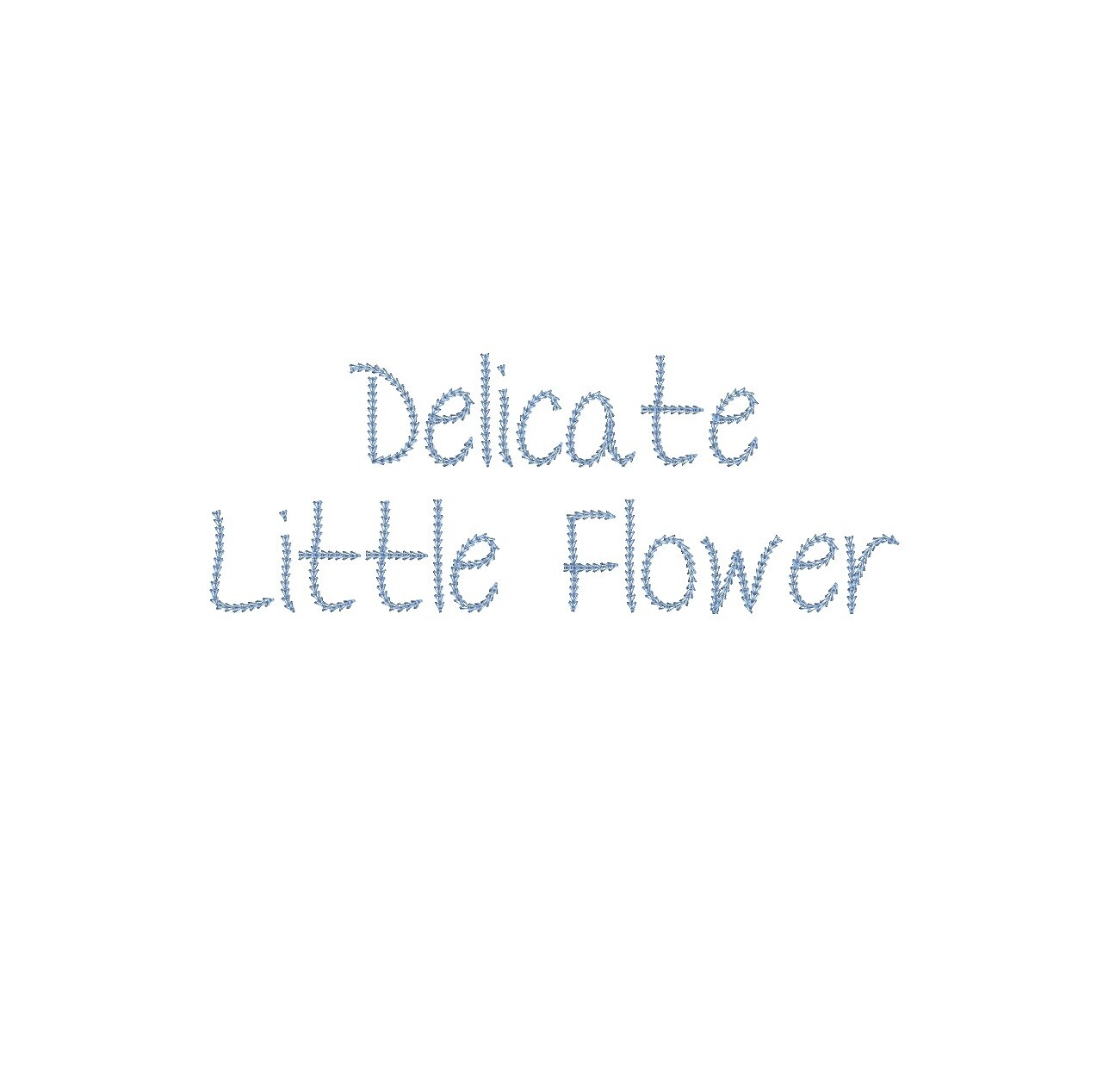
Elevate your embroidery with the Delicate Little Flower Chain Stitch ESA font. Designed for Wilcom Studio e4.5.6 and Hatch 3 versions and beyond, it brings a touch of grace to your designs. Meticulously crafted, the font's chain stitch artistry adds depth and allure to every project. Seamlessly integrate for captivating results that stand out. Delicate Little Flower transforms fabric into a canvas of creativity with its elegant appeal. Elevate your embroidery with this seamless blend of technology and artistry. Experience the power of Delicate Little Flower Chain Stitch ESA font to redefine stitching excellence. Upgrade your designs today for timeless charm.